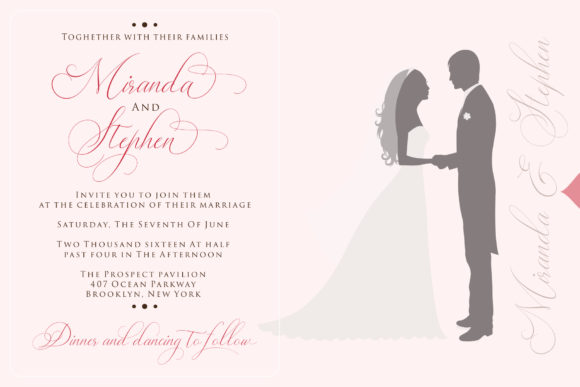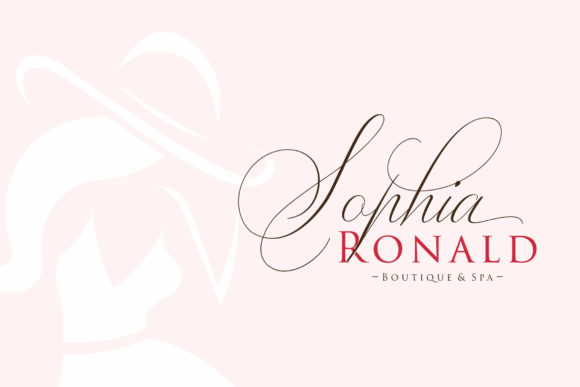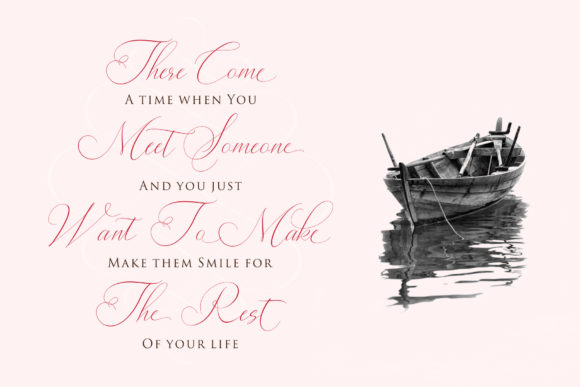
Introduction to Lady Suettaya Font
The Lady Suettaya is an amazing font.
It’s classy but also has modern elements, which makes it particularly suitable for wedding designs, book covers, greeting cards, logos, branding, business cards, and every other design which needs a luxurious feel .